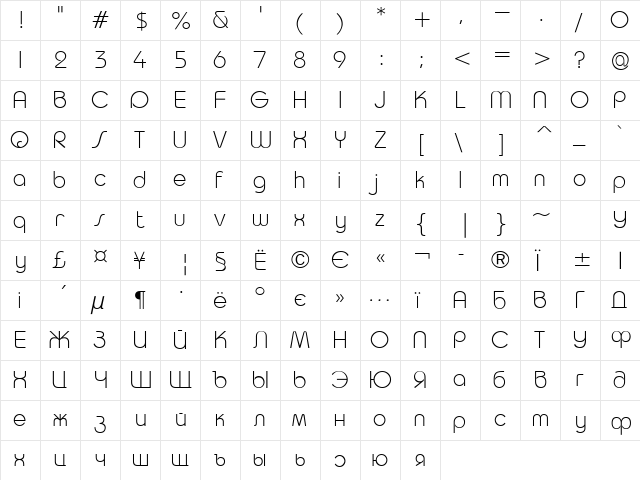
TaurusLight Normal
Design Context for TaurusLight Typeface
TaurusLight offers clean, dependable letterforms without strong stylistic allegiance, making it a practical choice for designers who need flexibility. Its slender proportions lend an understated elegance to any composition.